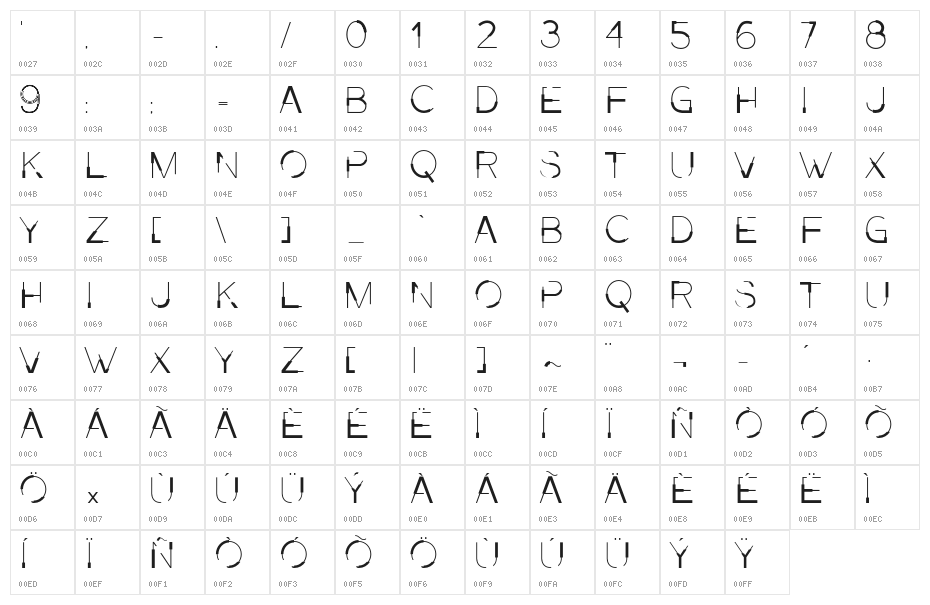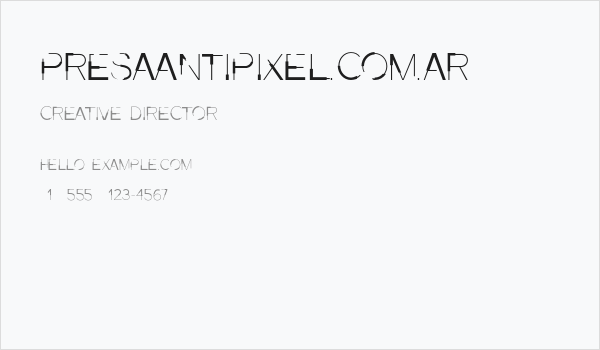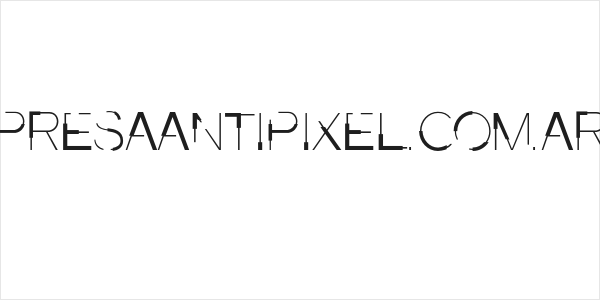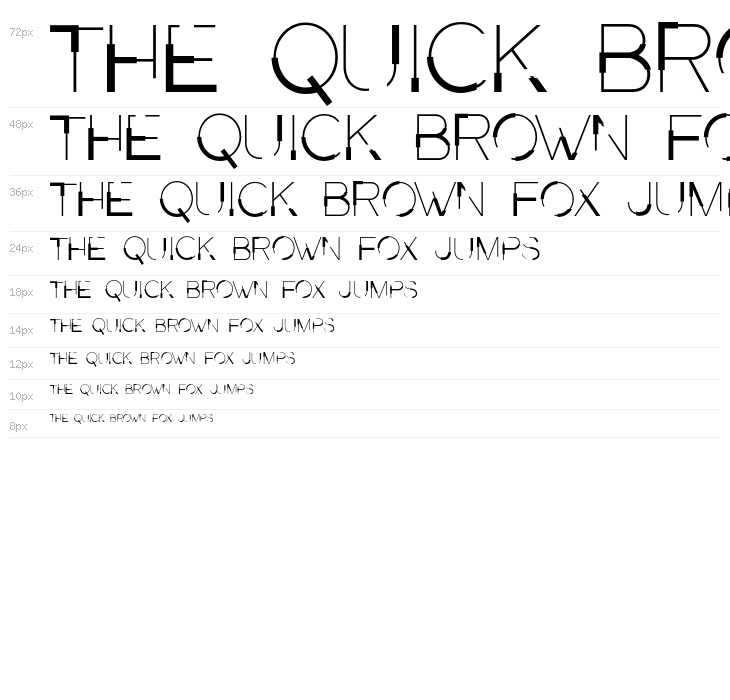
PresaANTIPIXEL.COM.AR Font
PresaANTIPIXEL.COM.AR Description
This font features a modern and experimental design, characterized by its fragmented and deconstructed letterforms. Each character is uniquely styled with missing segments, creating a sense of movement and dynamism. The uppercase and lowercase letters maintain a consistent geometric structure, while the numbers and special characters follow the same fragmented theme. This font's distinct style makes it suitable for creative and artistic projects where a bold statement is desired.
| Proposed Projects | Ideal for artistic posters, album covers, branding materials, and digital art projects. |